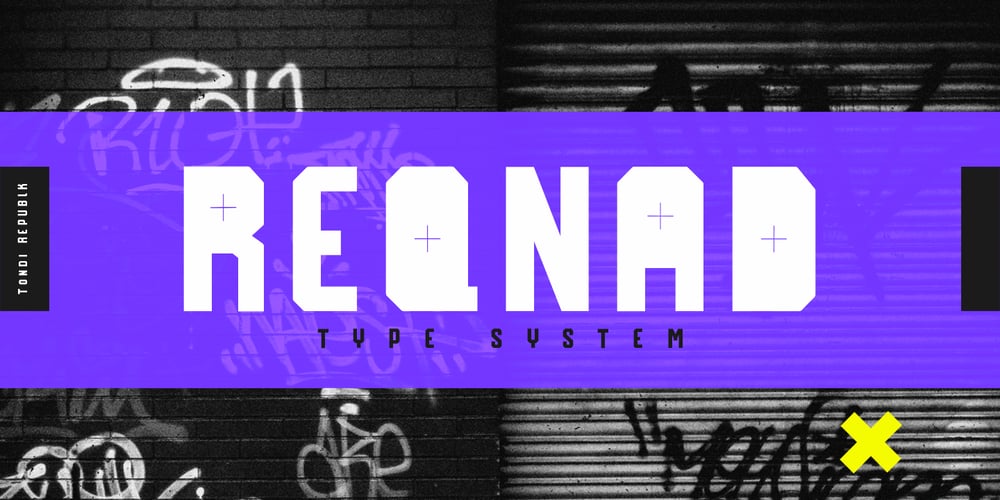
TR Reqnad Display
TR Reqnad Display font
TR Reqnad Display Font Family was designed by Fhumulani Nemulodi and published by Tondi Type Studio. TR Reqnad Display contains 7 styles and family package options. Reqnad Display is part of a series of typefaces by Tondi Republk, inspired by modern industrial design and architecture. The Reqnad Display type system consists of seven typefaces with varying visual styles and weights which can be used interchangeably to create harmonious, versatile and impactful visual communication systems. Used alongside well curated imagery and grid based layouts it adds a modern appeal to written sentiments. To view more examples of layouts created with Reqnad Display search for the #ReqnadDisplay hashtag on social media.